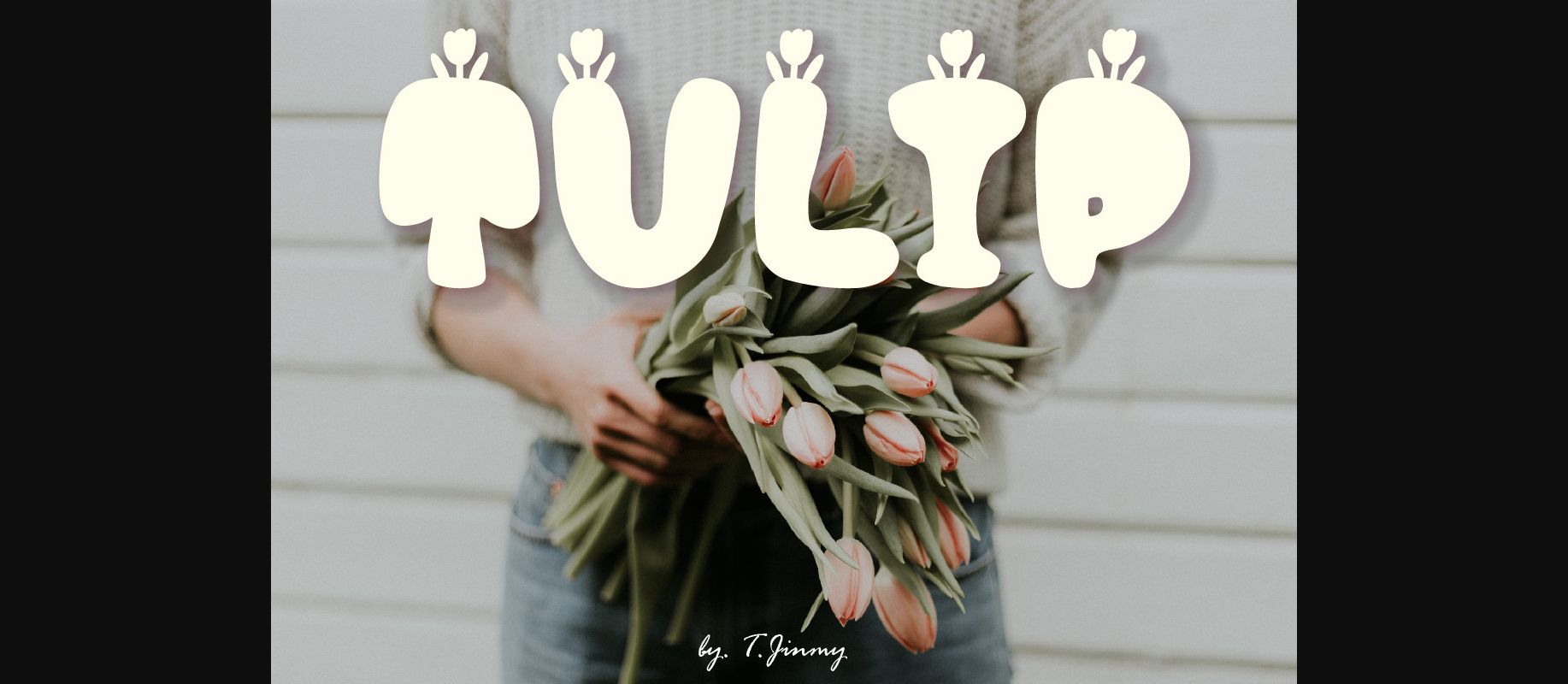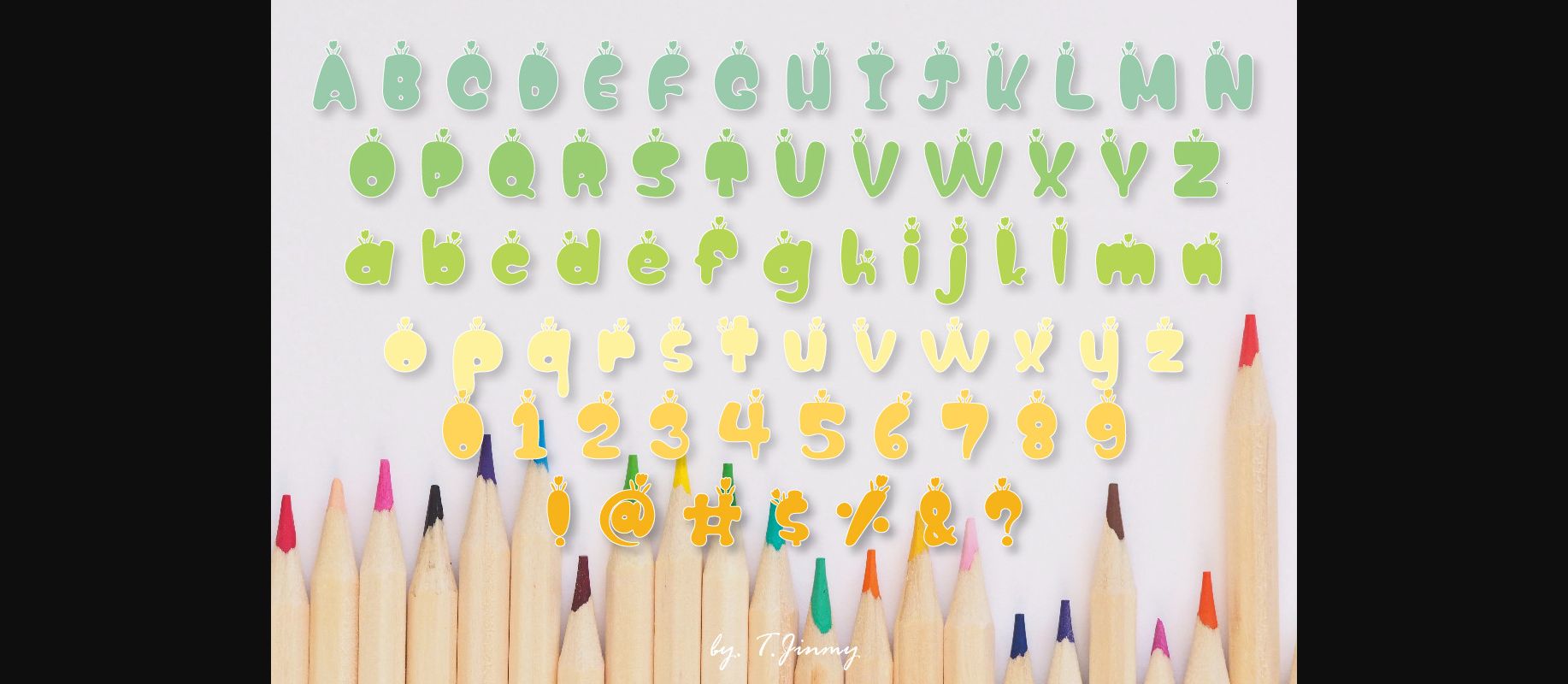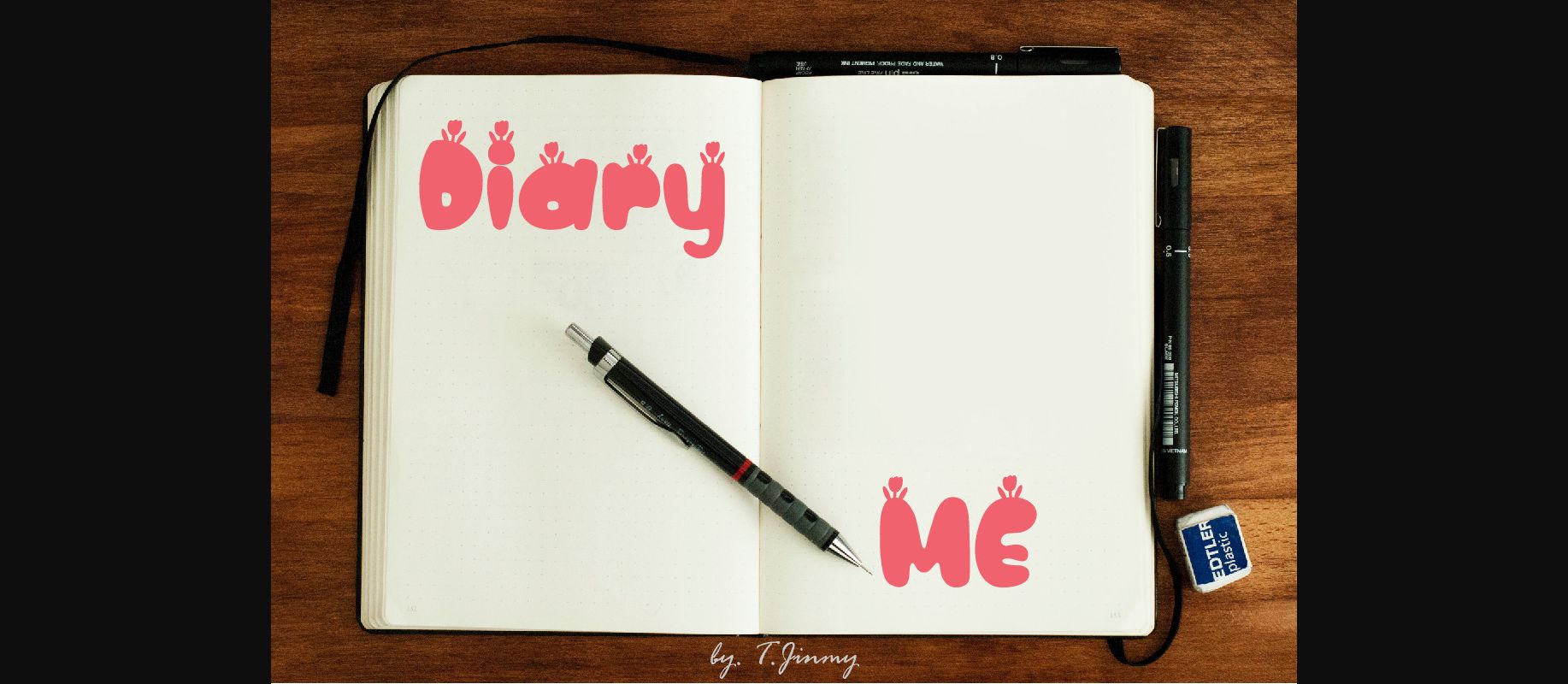
Tulip is a cute and whimsical display font. Its quirky characters make it the perfect fit for all of your logos, branding, social media, crafty DIY projects, and much more!